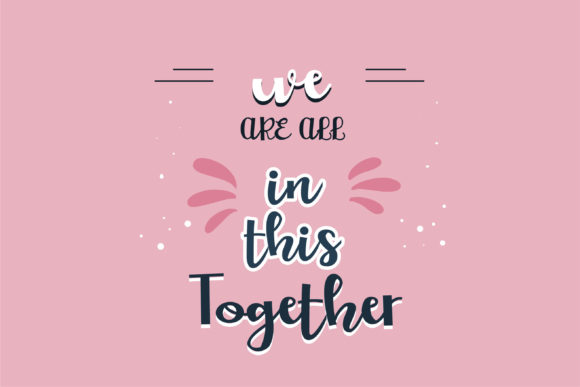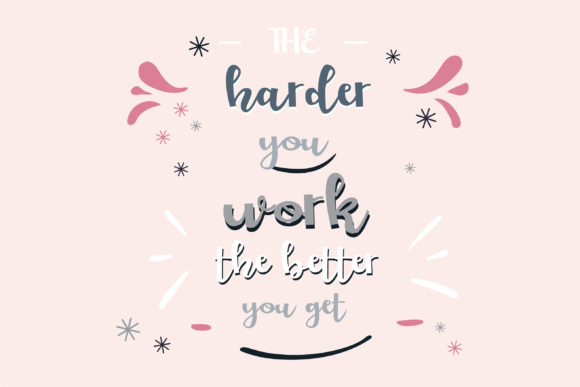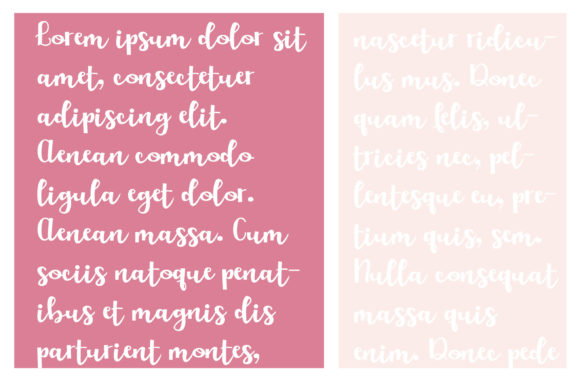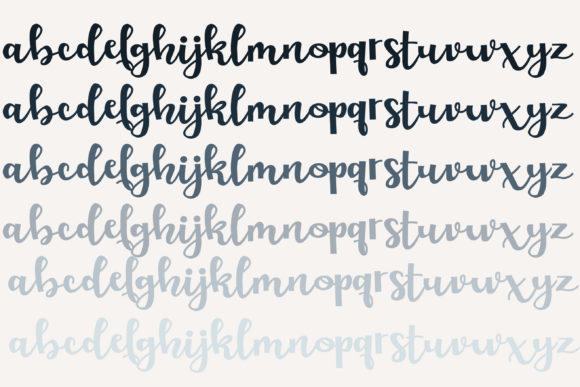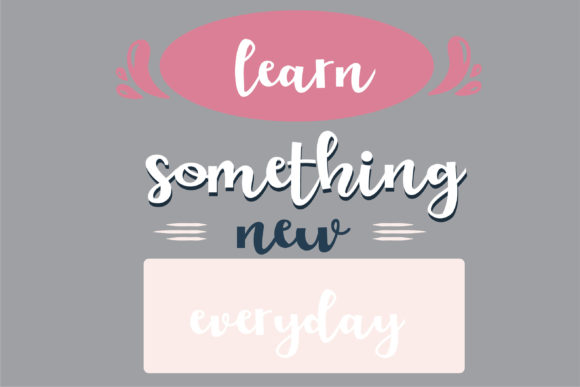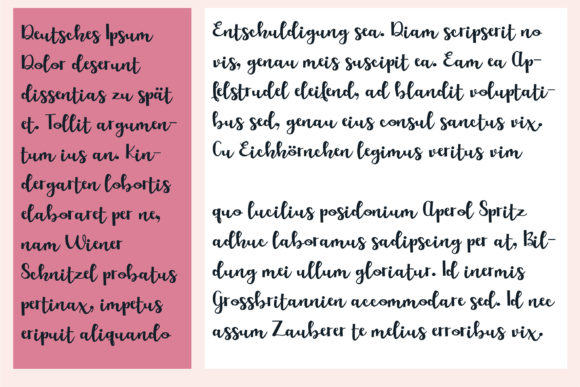
ZP Love of My Life Font
About ZP Love of My Life Font
“ZP Love of My Life Font” is a casual handwritten font that embodies a charming bounce, incorporating a delightful interplay of thick and thin lines. For a touch of playful flair, the font features greater than and less than glyphs that can be used to add a fun flourish to your text. Additionally, the font comes with a Stencil version, providing you with further creative opportunities.
The font’s casual and bouncy style infuses your designs with a sense of liveliness and approachability. Whether you’re working on projects that require a cheerful and dynamic atmosphere, “ZP Love of My Life Font” can enhance your work with its endearing and artistically crafted aesthetic.
The use of greater than and less than glyphs offers a creative way to introduce decorative elements to your text, allowing you to incorporate a unique and whimsical touch that distinguishes your designs.
With the Stencil version included, you can explore designs that balance the casual charm of handwriting with the organized structure of stenciled forms. This feature opens up the possibility for designs that are both playful and well-defined.
In essence, “ZP Love of My Life Font” is more than just a font—it’s a versatile tool designed to elevate your design projects. Its bouncy style, decorative glyphs, and Stencil version make it a valuable asset for designers aiming to create designs that are both lively and visually captivating, leaving a memorable impact.